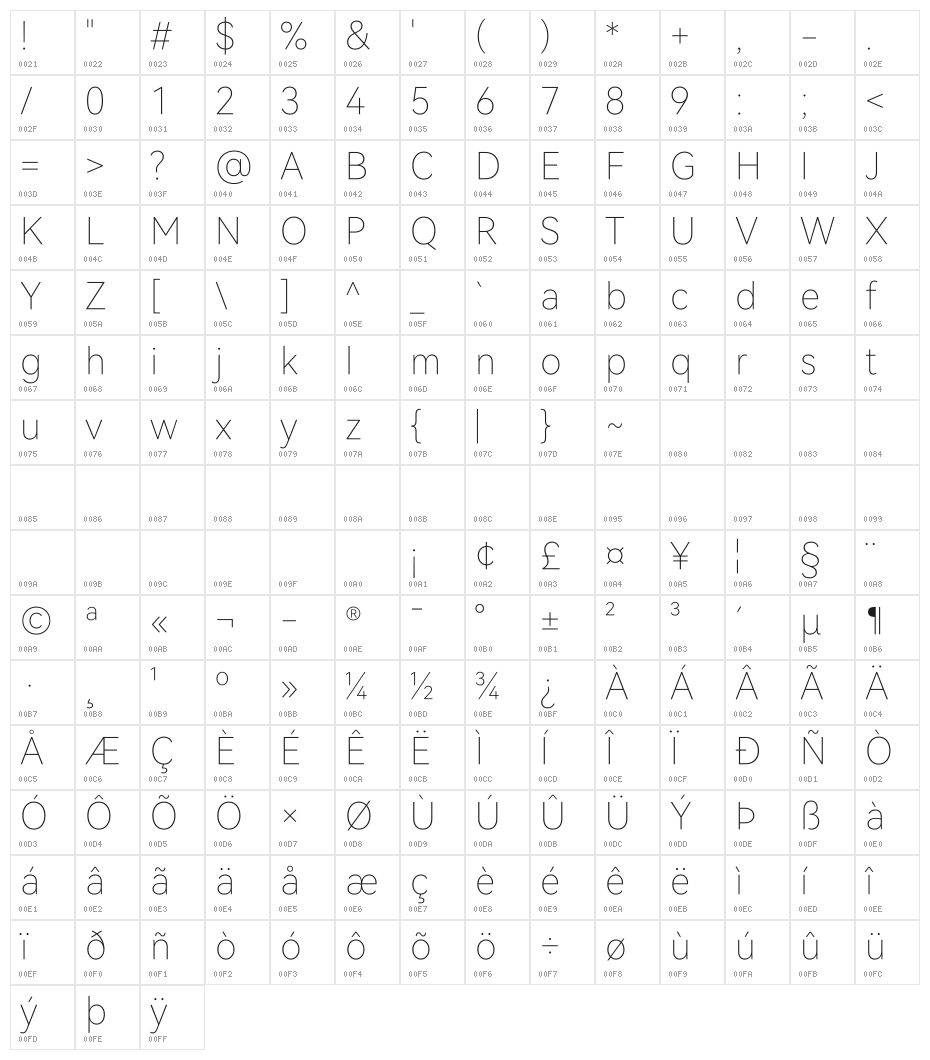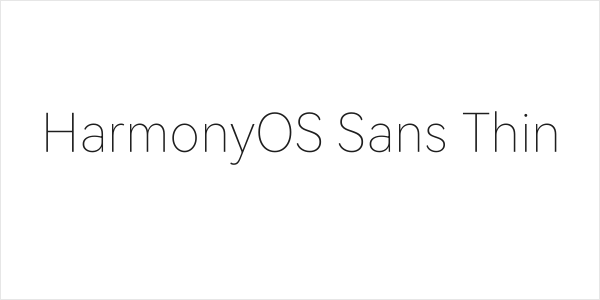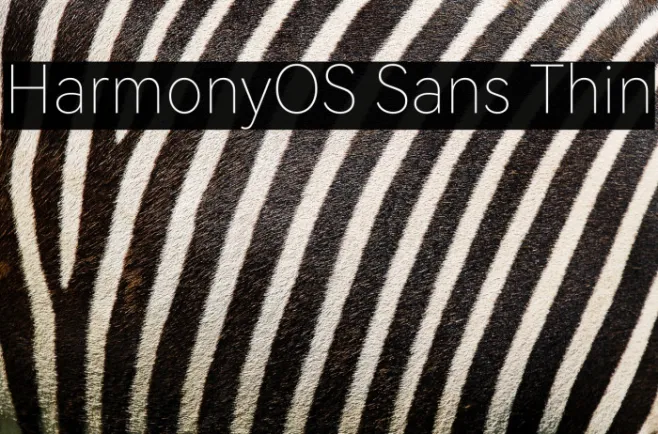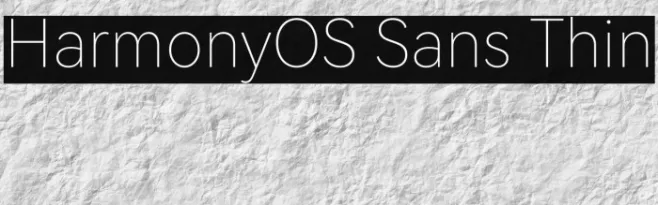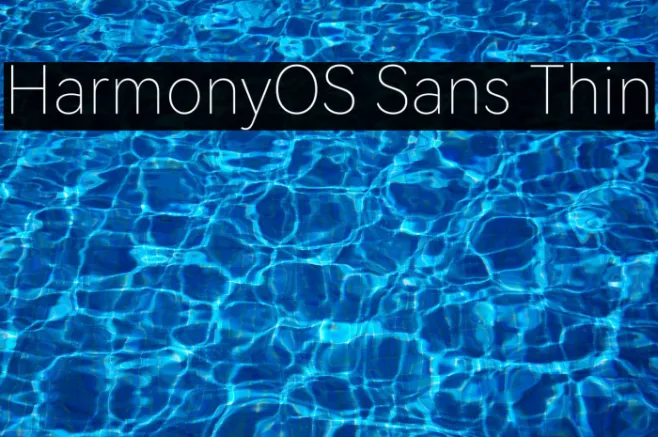
HarmonyOS Sans Thin Font
HarmonyOS Sans Thin Description
This font presents a clean and modern aesthetic with its thin, uniform strokes and minimalistic design. The characters are well-proportioned, offering a sense of balance and harmony. Its sans-serif style gives it a contemporary feel, making it suitable for digital interfaces and modern branding. The font's simplicity ensures readability, while its elegance adds a touch of sophistication. The spacing between characters is normal, providing clarity and ease of reading. Its overall style is sleek and understated, perfect for conveying a sense of professionalism and modernity.
| Proposed Projects | Ideal for tech branding, user interfaces, minimalist designs, and modern corporate communications. |